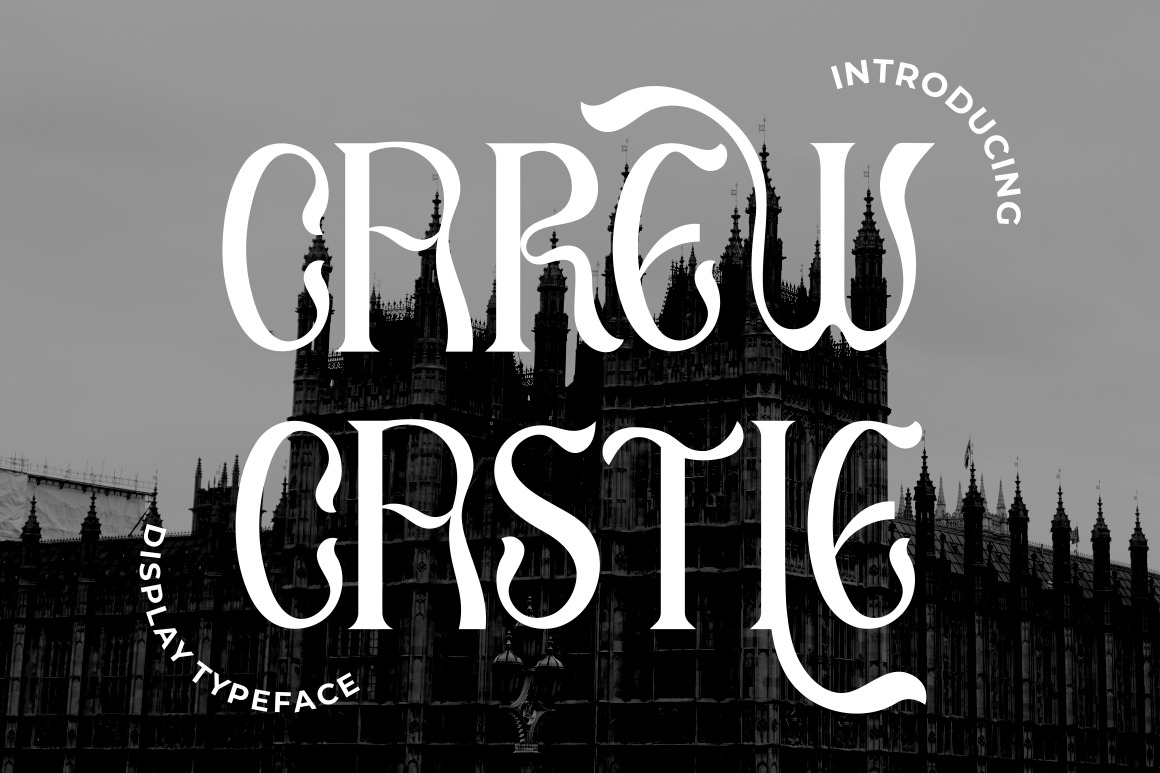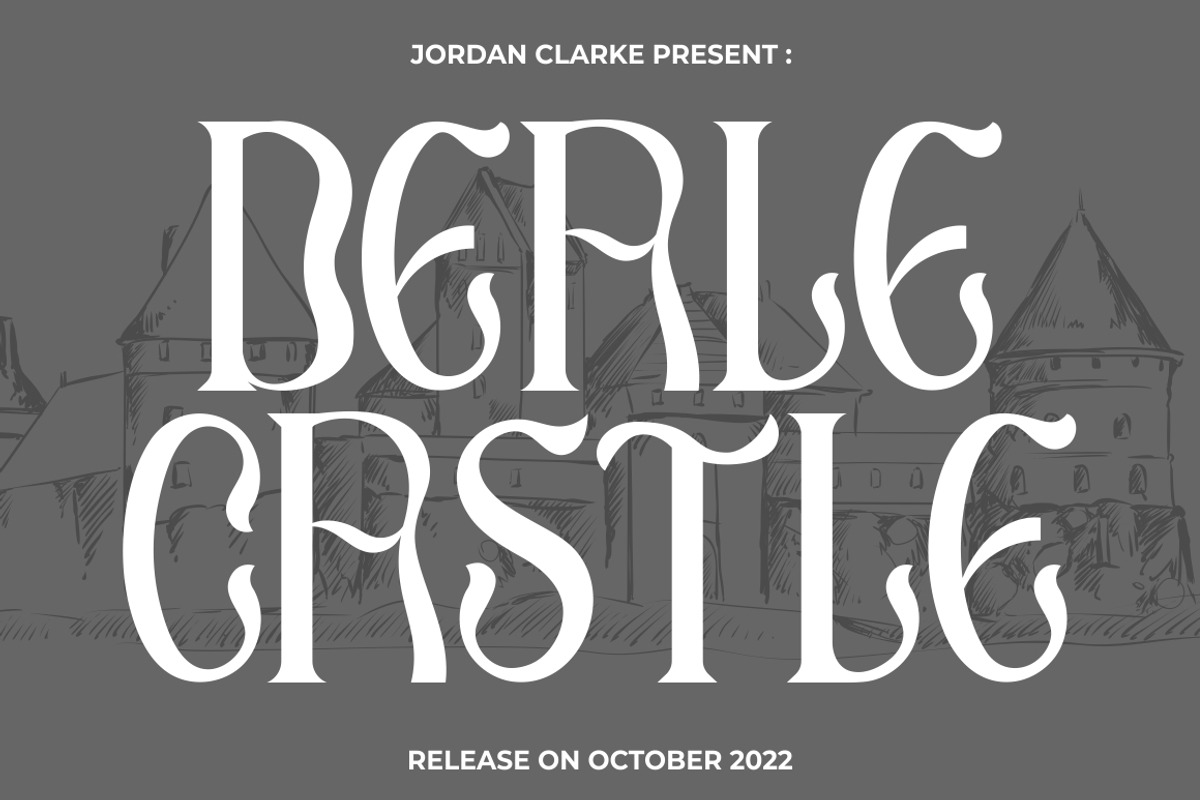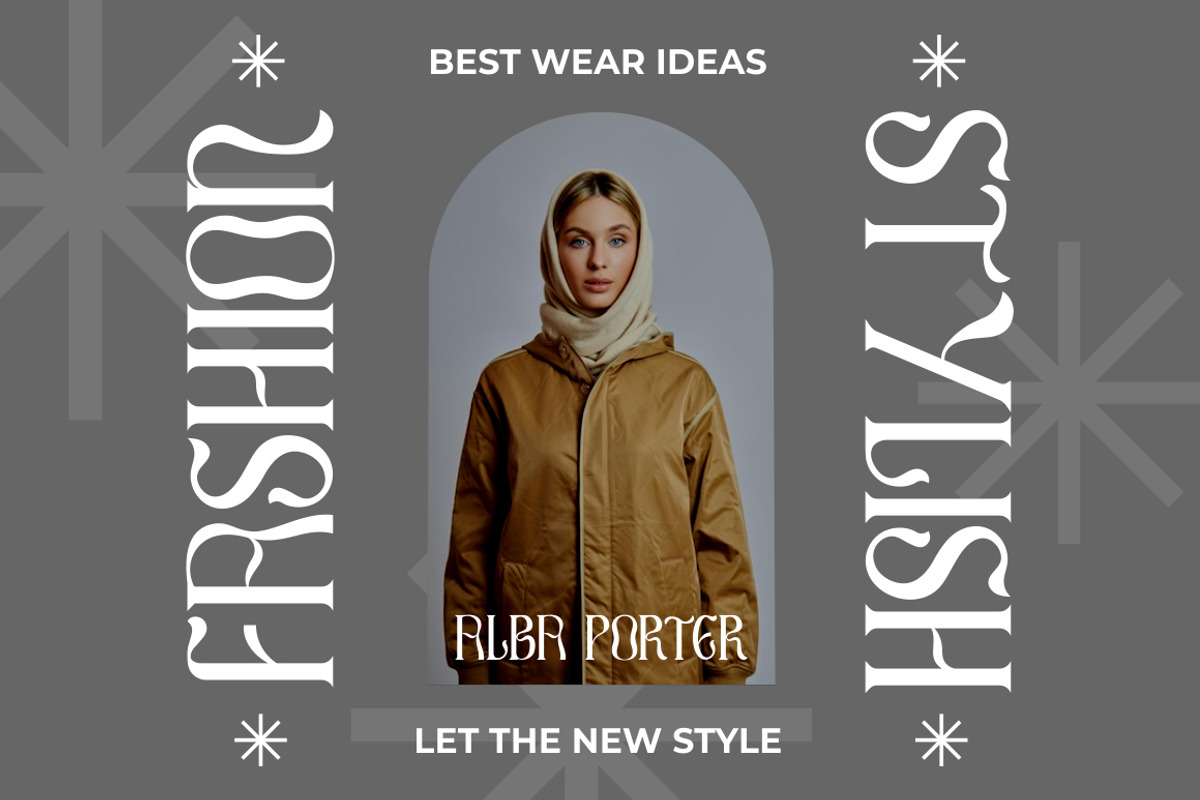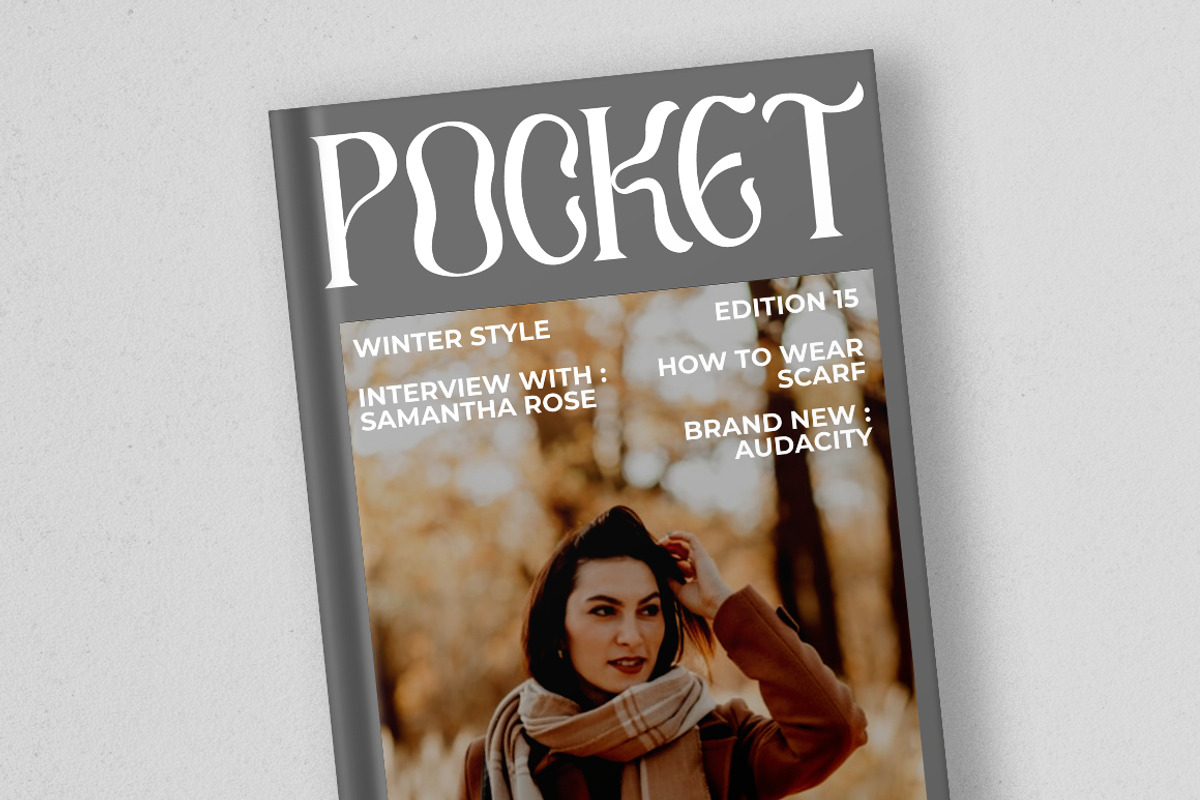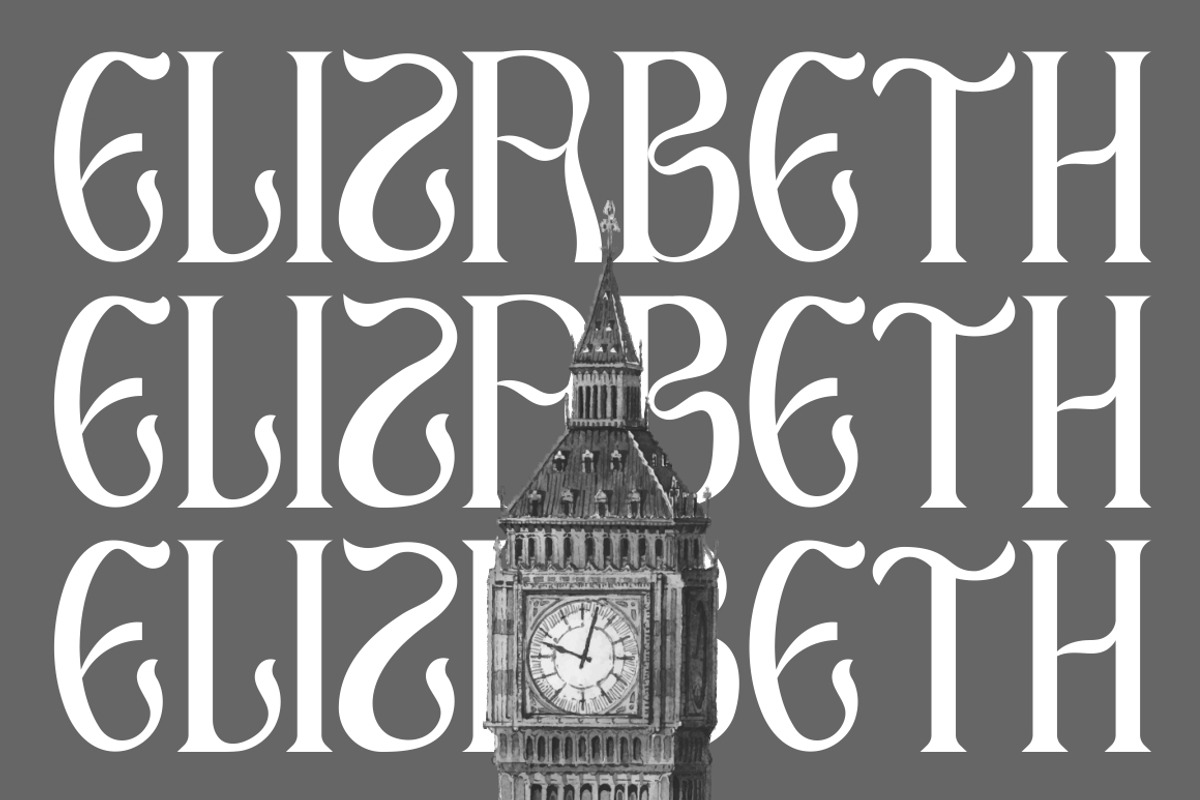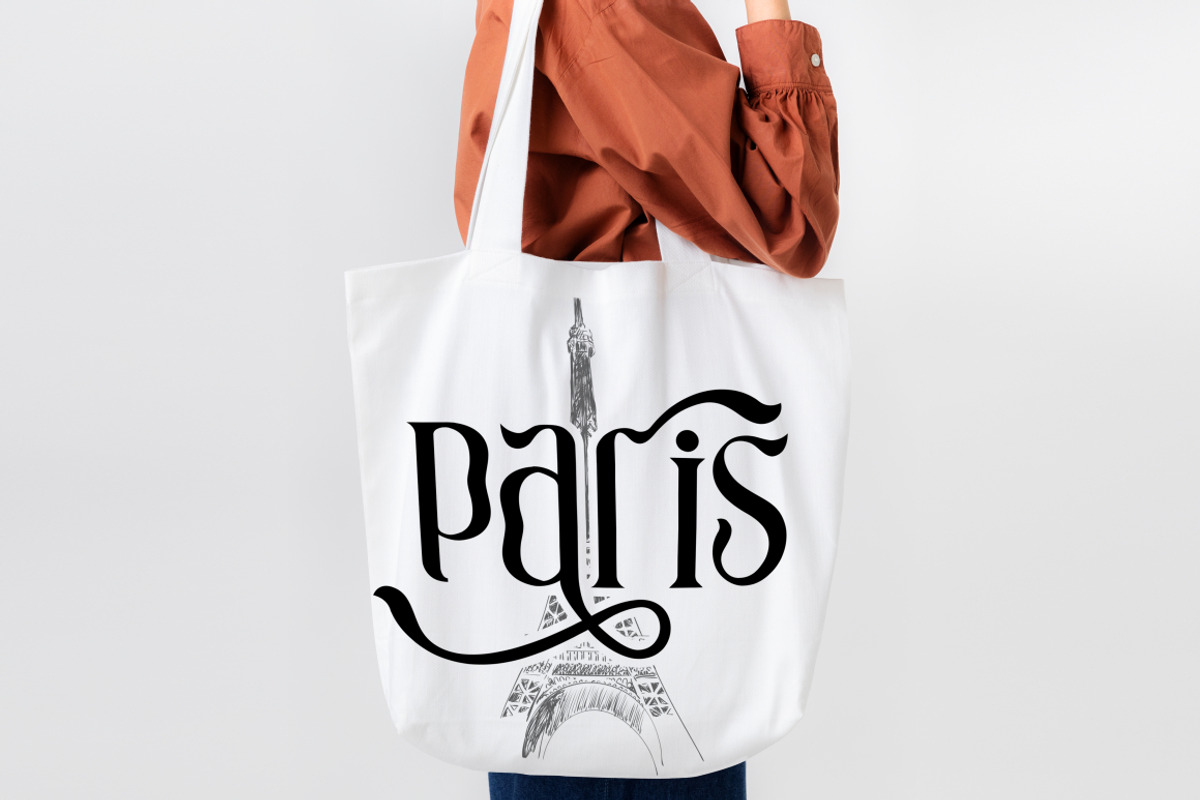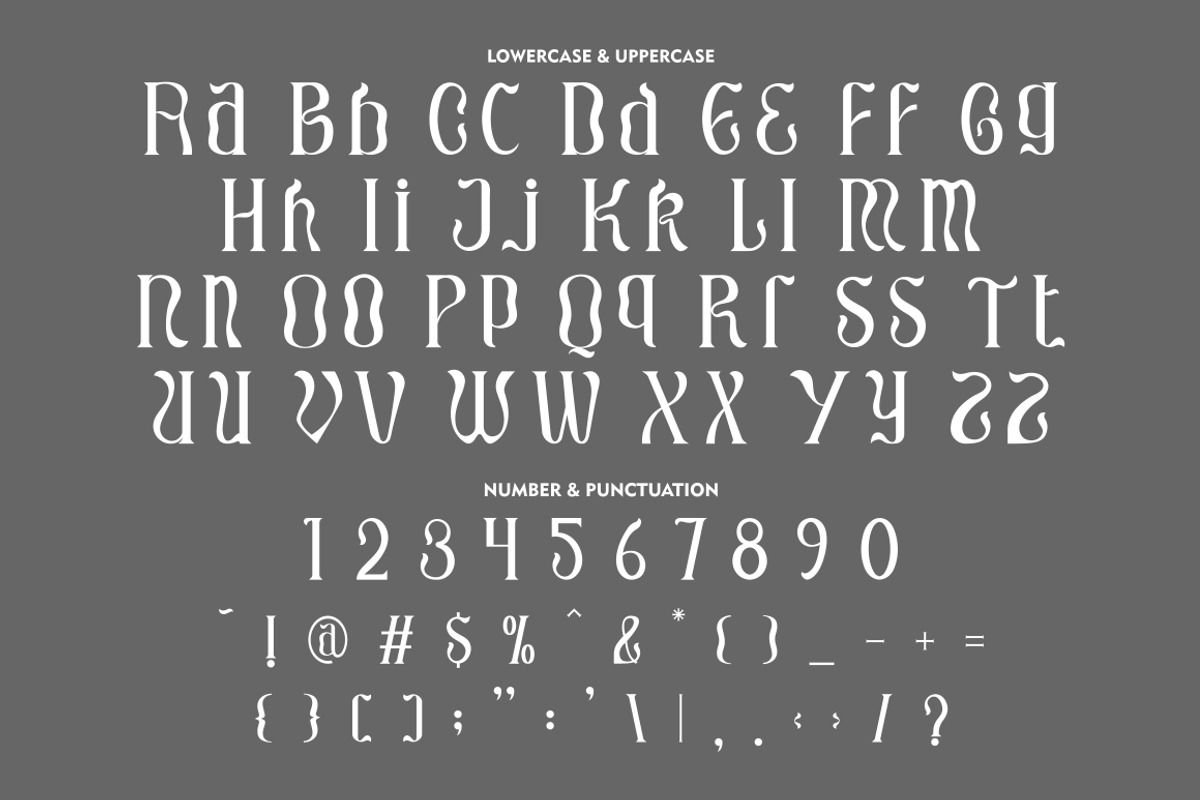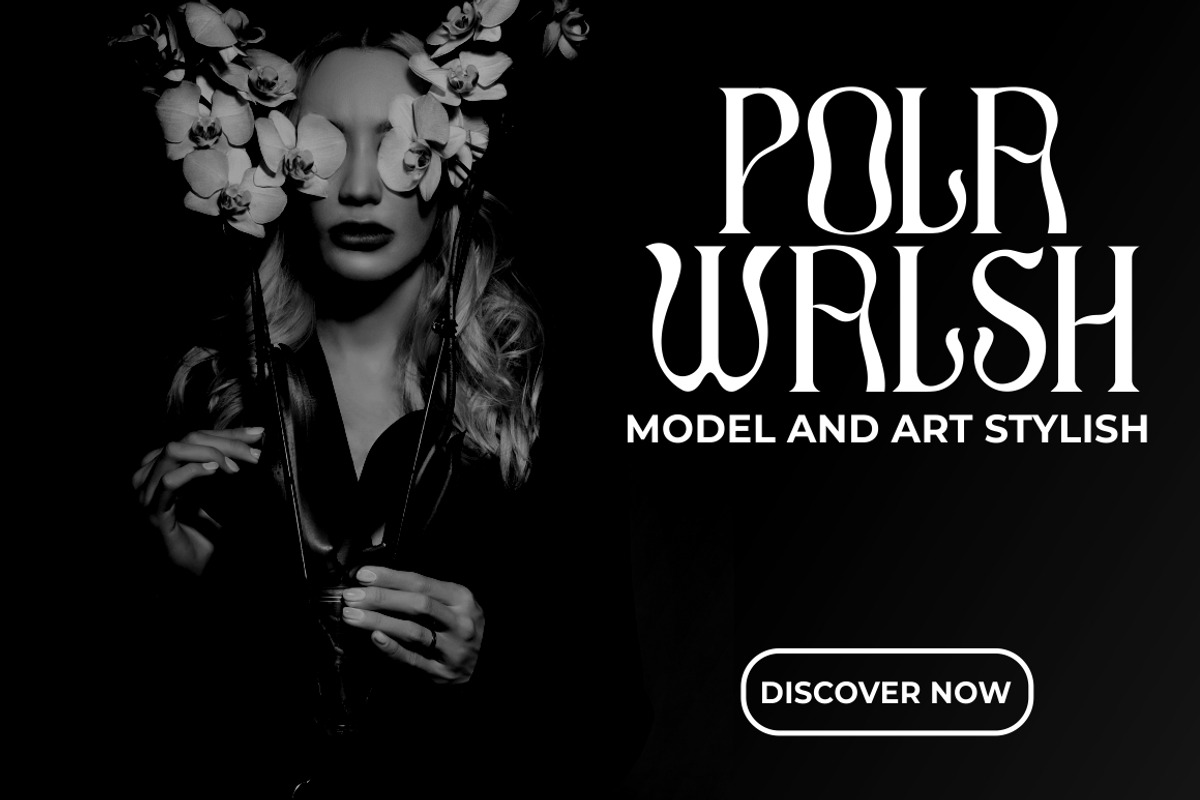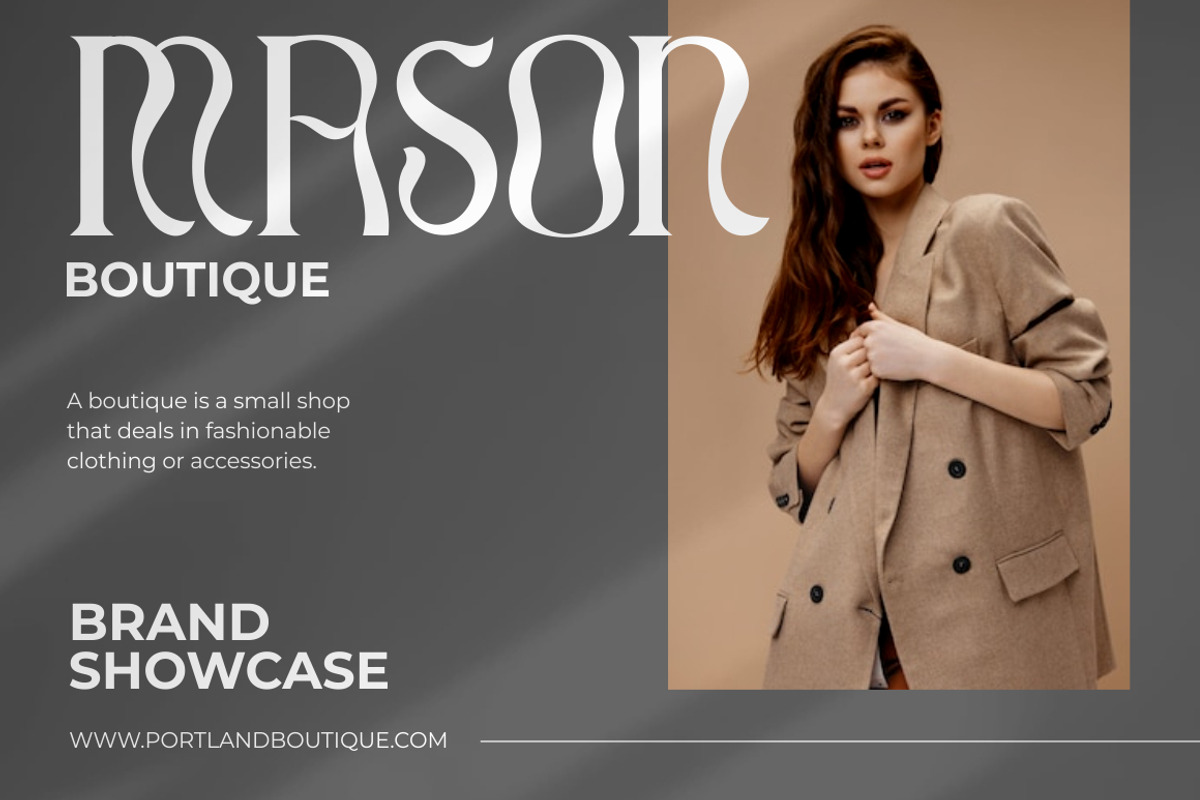
Carey Castle - Display Font
Carew Castle - Display Typeface Font
Introducing a new display sans font called “ Carew Castle “. Inspired from luxury display from the classic cover and we combine with elegant typeface style. With a alternate character, you can make great display combinations for lettering with a lot of options. Come with open type feature ( a lot of alternates and end swash), its help you to make great lettering. Carew Castle font is also support multi language. Carew Castle best uses for Logotype, heading,cover, poster, logos, quotes, product packaging, header, merchandise, social media & greeting cards and many more.
Comes with feature :
- Opentype (Alternates And Ligatures)
- Number, Punctuation And Symbols
- Multilanguage Support.